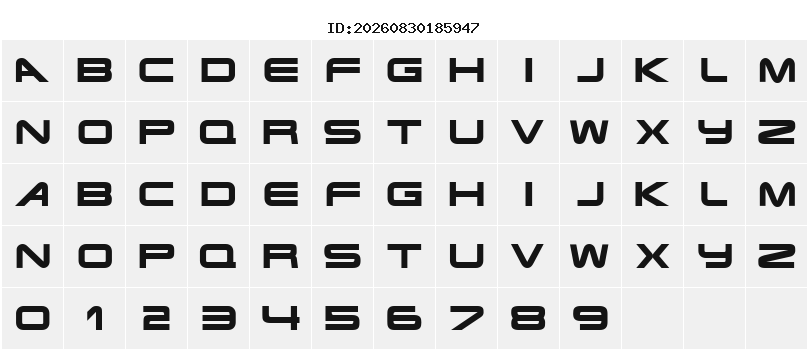
Terminator Real NFI Preview
• Font Name: Terminator Real NFI
• Full Font Name: Terminator Real NFI
• Designer: Thomas W. Otto
About Terminator Real NFI.ttf
Terminator Real NFI.ttf is a modern, elegant sans-serif font designed for ultimate readability and visual harmony. Perfect for branding, headlines, web design, and print materials.